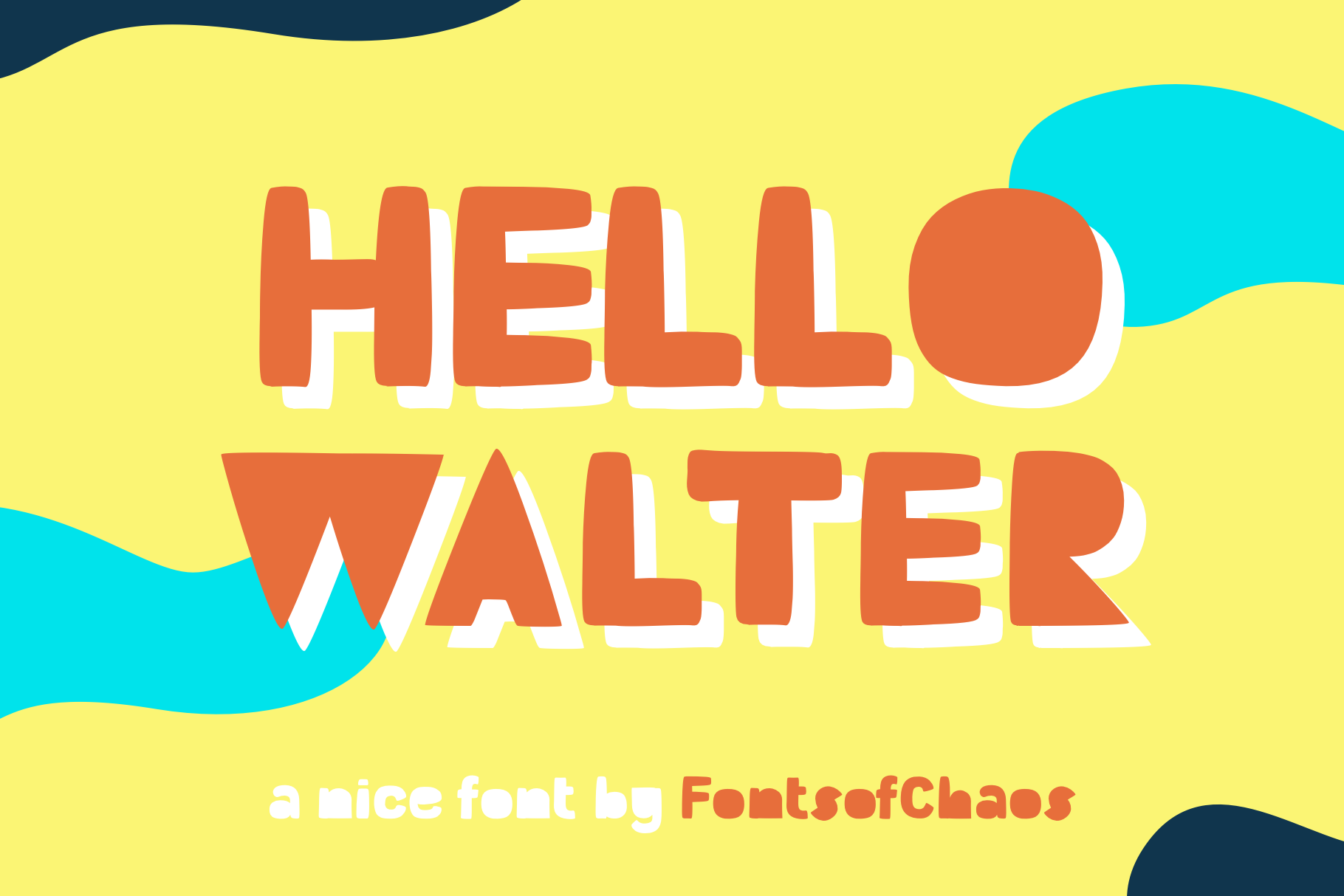
Hello Walter - Font
Hello Walter - Fonts by Fonts of Chaos.
Complete font with 598 glyphs (update 2 aug 2019 635 glyphs), you can use in a lot of language. The type is made for print and web. UPPERCASE, lowercase, numerals, punctuations, cyrilic and foreign language.
All letters is drawn by hand.
Made for Children book it can be used for graphic design works and illustration.